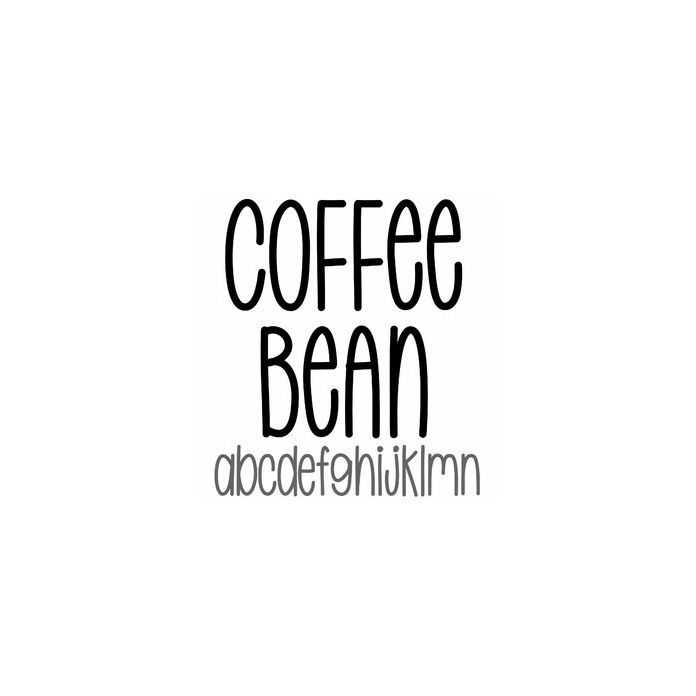
Coffee Bean is a cute handwriting font for decorative crafts, birthday, greeting cards, monograms, signs, notes, labels, and personalization projects. Includes alphabet, numbers, and punctuation.